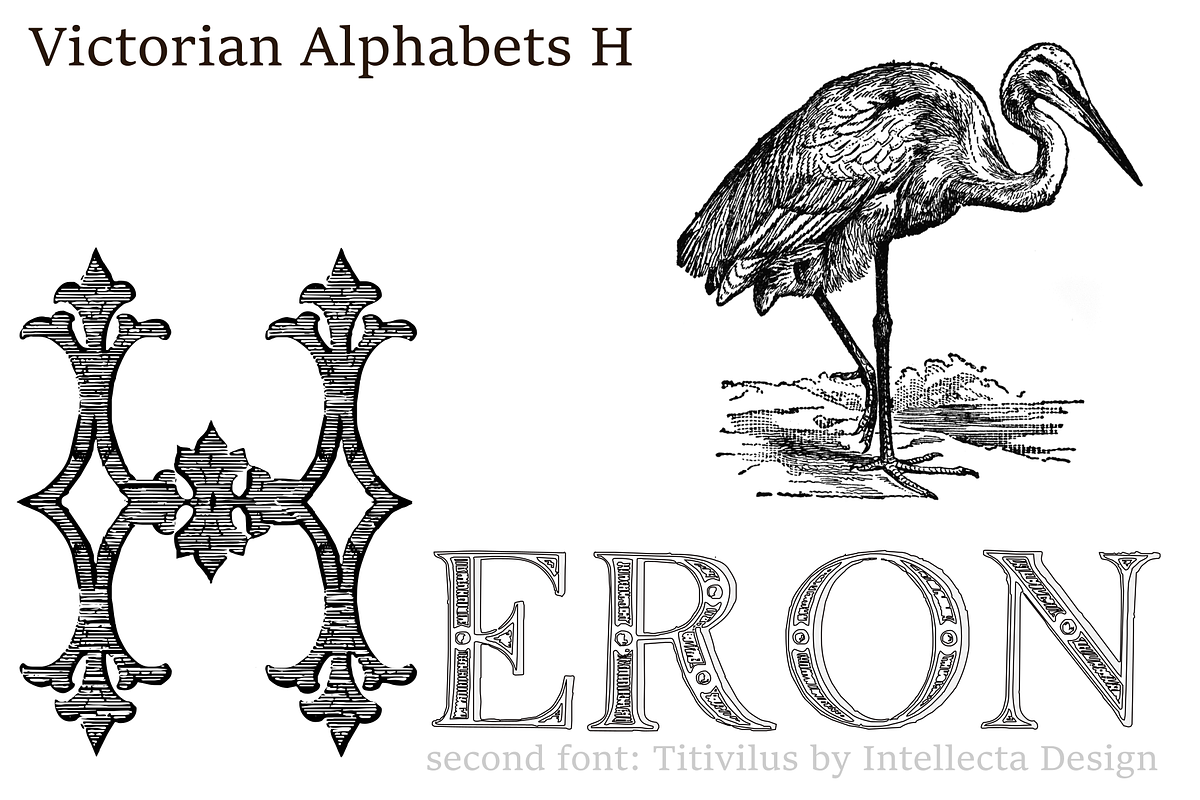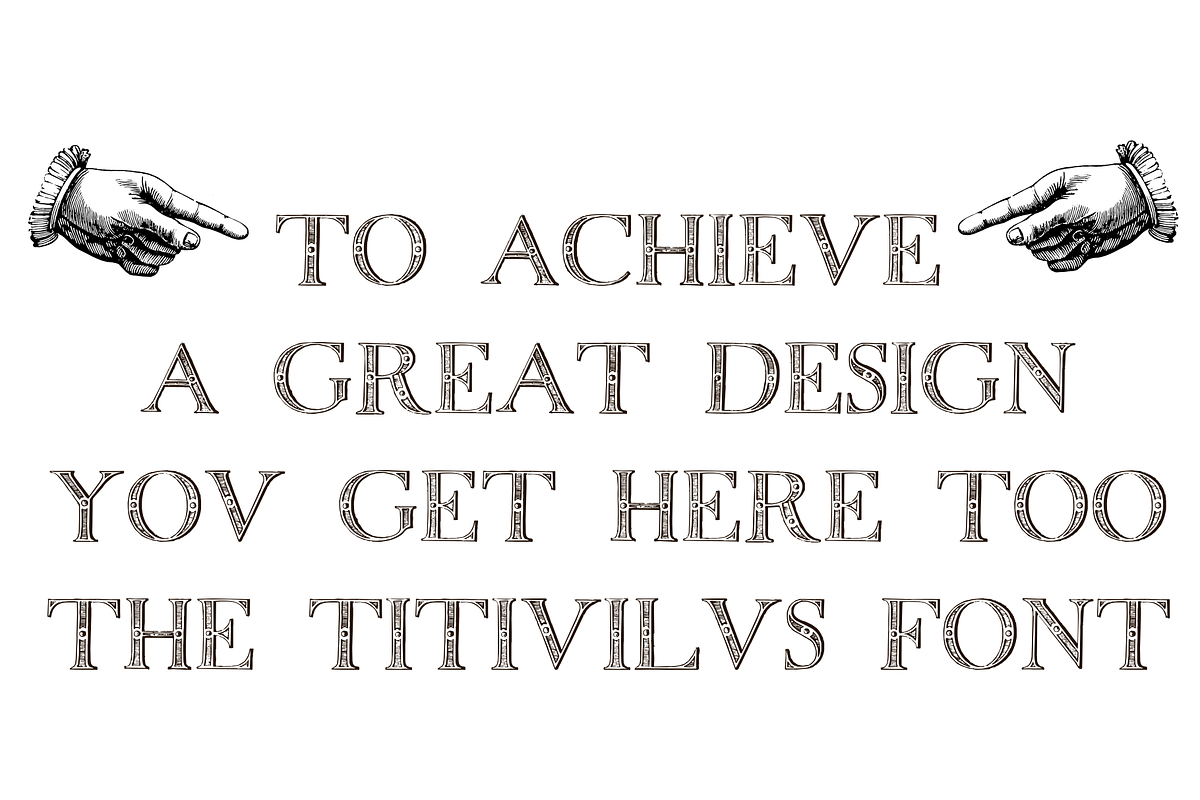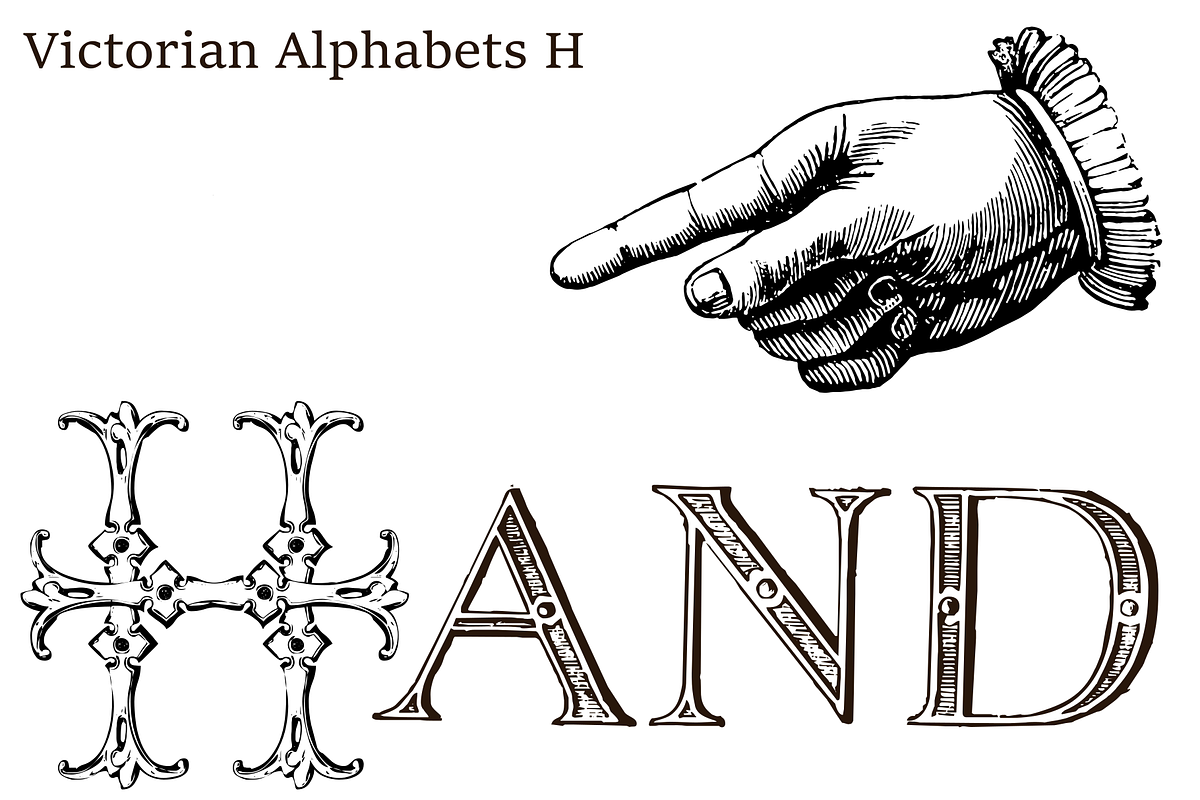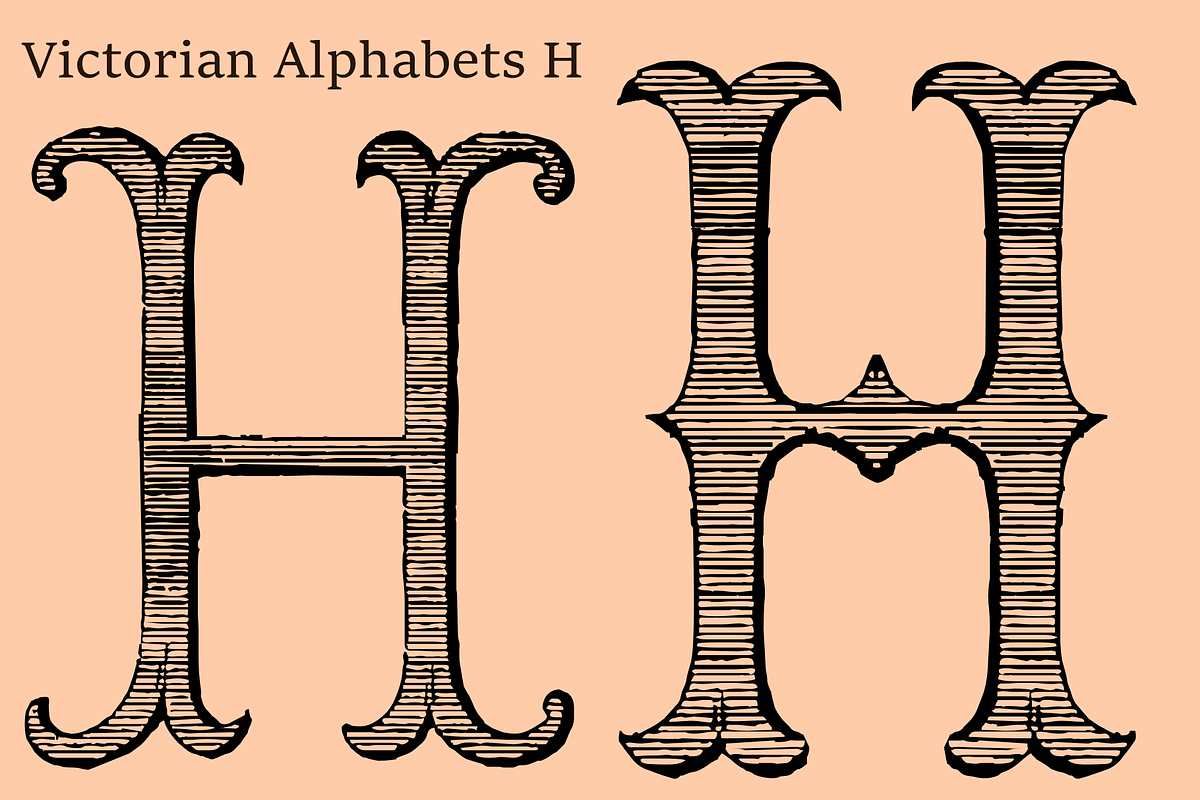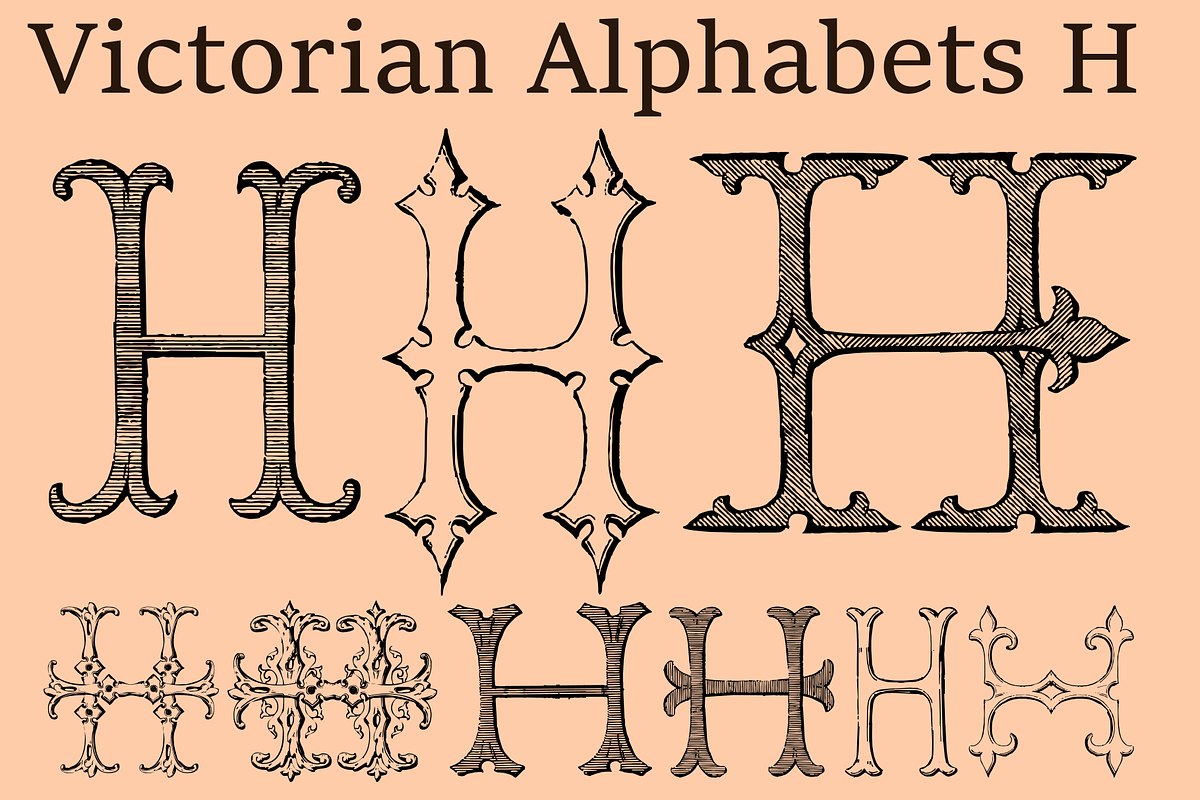
Victorian Alphabets H Plus Titivilus
Victorian Alphabets H is an incredibly cool and classic display font. Elegant and distinct, this font will most certainly elevate your creations. Add it confidently to your projects, and you will love the results. You have a great set of letters "H" using the uppercases, lowercases and numbers keys on the keyboard.
Plus, you get here the Titivilus font to make a GREAT DUO combinaton, like you can see i the banners
A FONT DUO !!!